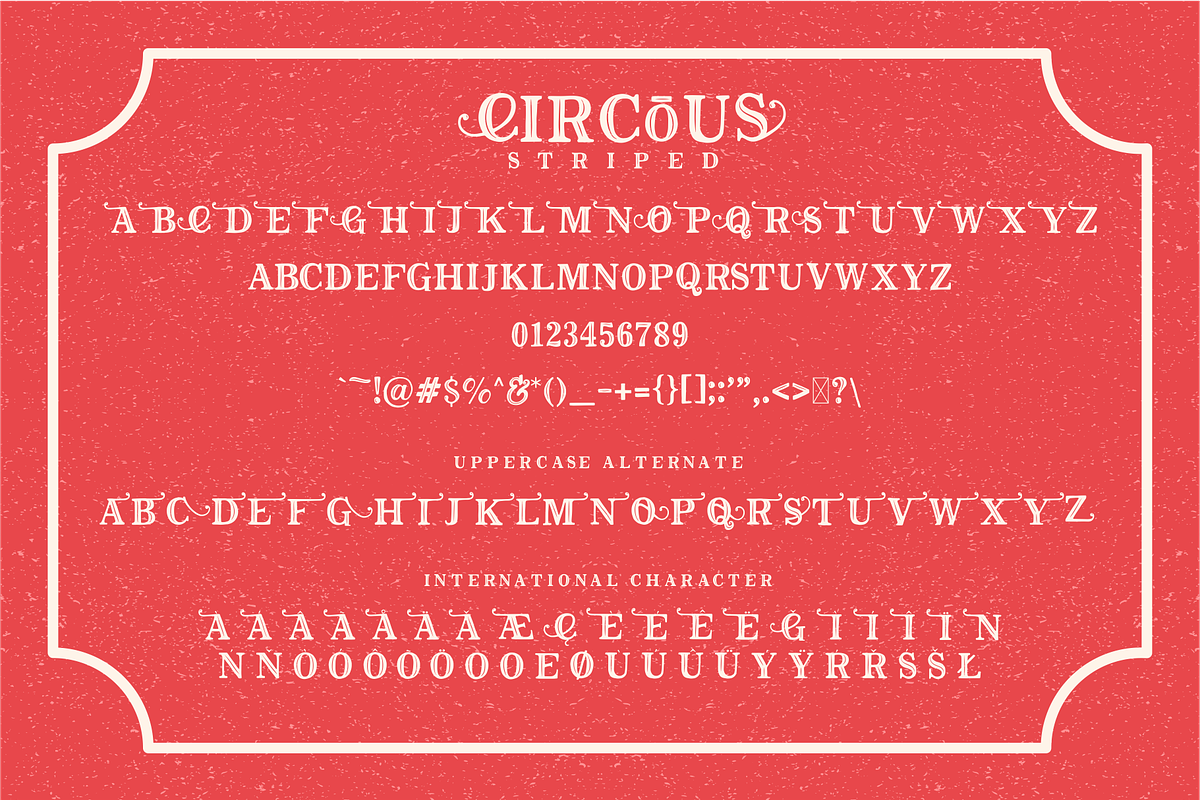
The Circous
The Circous font is a classic rough style font that gives a natural effect like done by hand. This font looks pretty masculine suitable for things related to vintage or classic styles, such as logos, labels, posters, book covers, or anything that needs a classic touch. This font has an uppercase character, but in uppercase font mode has different characters as a prefix which is equipped with an alternate suffix. This font is available in 2 different styles, namely The Circous Regular and The Circous Striped.
- Standard English character,
- Uppercase & Lowercase,
- Punctuation & Number,
Uppercase Characters Lowercase Characters Support of foreign languages: ÀÁÂÃÄÅÆÇÈÉÊËÌÍÎÏÐÑÒÓÔÕÖØÙÚÛÜÝ